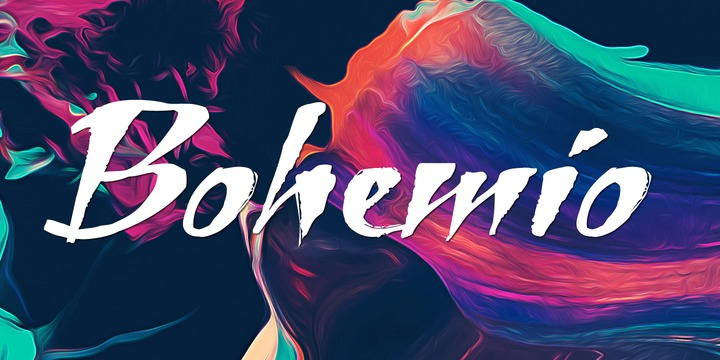
Bohemio Font
Bohemio Font is perfect for artisanal craft branding, bohemian fashion boutiques, music festival posters, vintage record album covers, handmade jewelry packaging, and free-spirited lifestyle brand communications. This artistic typeface works exceptionally well in organic coffee shop signage, yoga studio materials, and creative art gallery exhibitions.
What makes Bohemio Font so exciting is its authentic free-spirited character that captures the essence of bohemian creativity and artistic expression. The font features organic, hand-drawn letterforms with natural irregularities and artistic flair that create genuine handcrafted appeal. Its bohemian aesthetic demonstrates exceptional artistic freedom and unconventional beauty, making it ideal for brands seeking to convey creativity, authenticity, and alternative lifestyle values.
Bohemio Font comes in multiple style variations including Regular, Bold, Light, and Textured versions. The font family also includes artistic flourishes, bohemian symbols, and nature-inspired ornaments that enhance the free-spirited quality and provide extensive creative possibilities for alternative design applications.
The font's organic construction ensures natural readability while preserving its distinctive artistic character across various creative applications. Professional designers appreciate its comprehensive character support and specialized artistic features that maintain authenticity in both traditional and digital bohemian design contexts.
Bohemio Font has become increasingly popular among creative professionals working with artistic and alternative lifestyle brands. Its ability to convey creative freedom and bohemian authenticity makes it an invaluable asset for organizations seeking to establish genuine connections with audiences who appreciate unconventional, artistic expression through handcrafted typography.